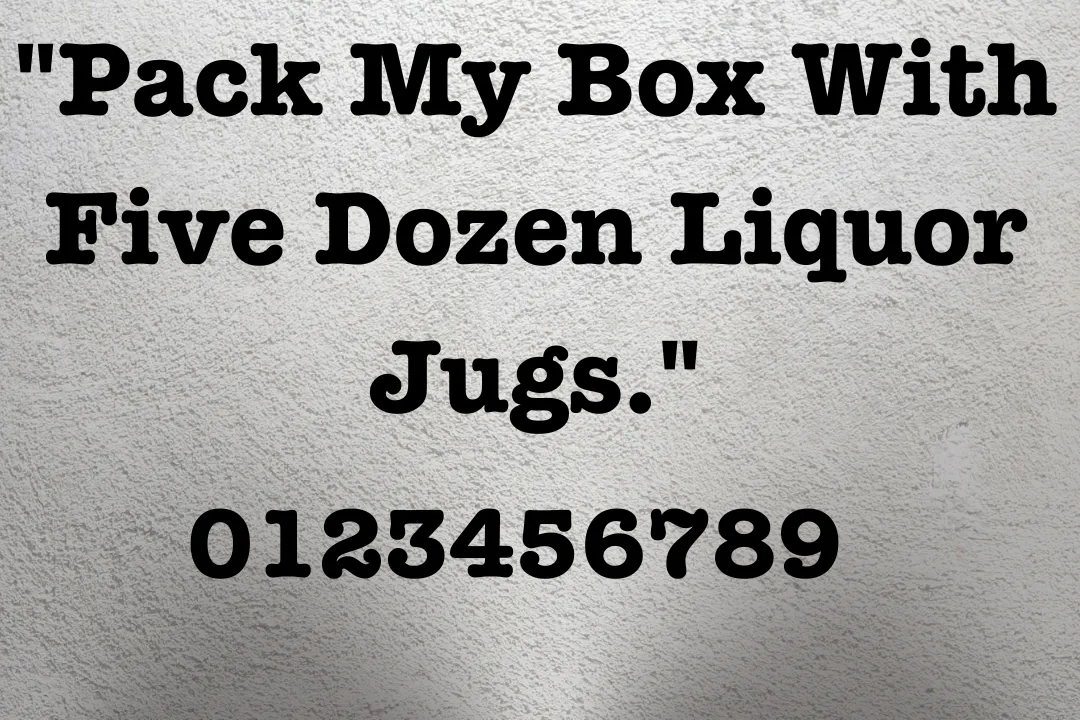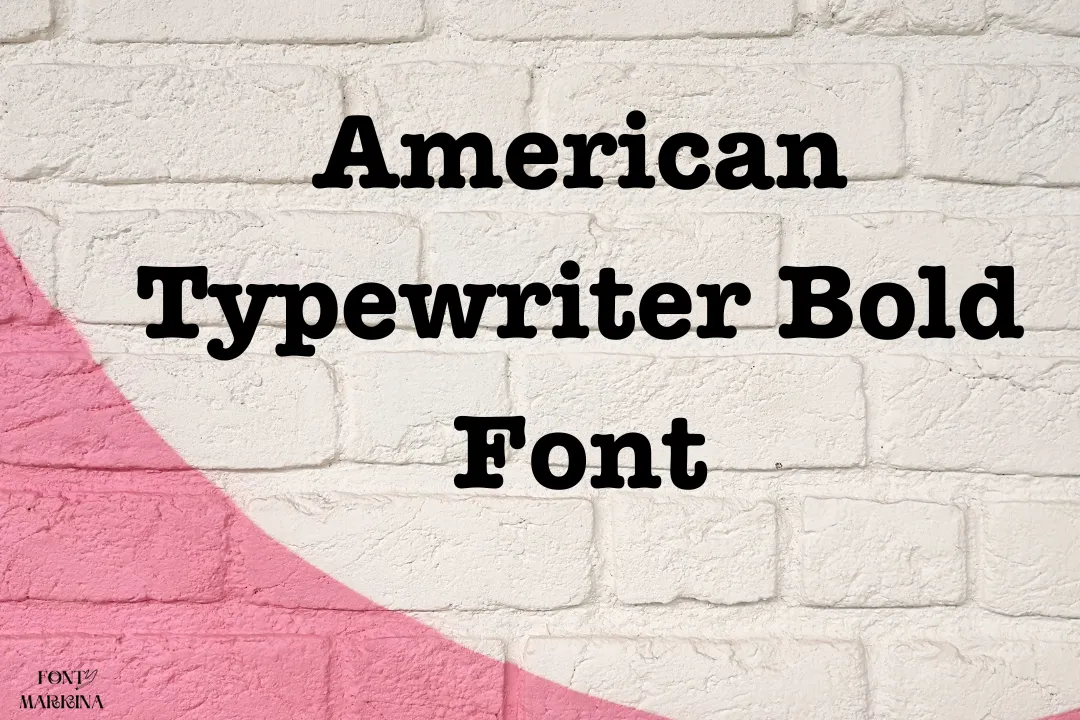
The American Typewriter Bold Font was developed by two famous designers Tony Stan and Joel Kaden for International texture Corporation in 1974. It belongs to the category of the Slab serif surface family. This font is suitable for both CSS and Adobe Photoshop.
Usually, its uses to represent old-style characters or images. This typeface consists of multiple characters 249 glyphs and weights such as semibold, Bold, and regular.
Although, hundreds of different text effects are available in this font. You can easily convert your simple surface into a stylish shape.
Uses of American Typewriter Bold Font
According to its clean and amazing texture look, It can be utilized for any type of design. The American Typewriter’s bold style is perfect for creating logo designs, watermarks, posters, and so on.
Is American Typewriter texture a slab serif?
The American typewriter is in the family of slab serif category.
What type of font is American Typewriter?
The American Typewriter Bold Font was developed by two famous designers Tony Stan and Joel Kaden for International Texture Corporation in 1974.